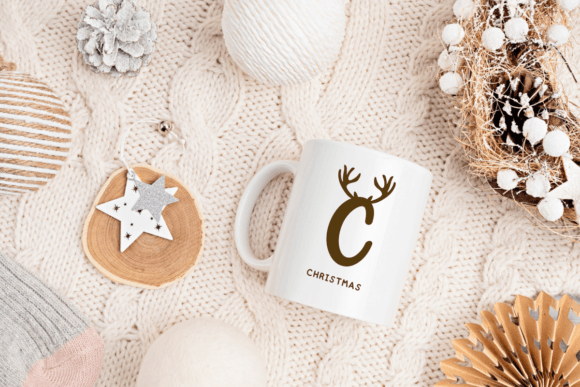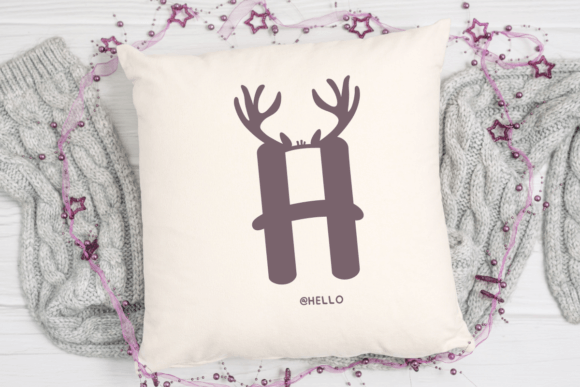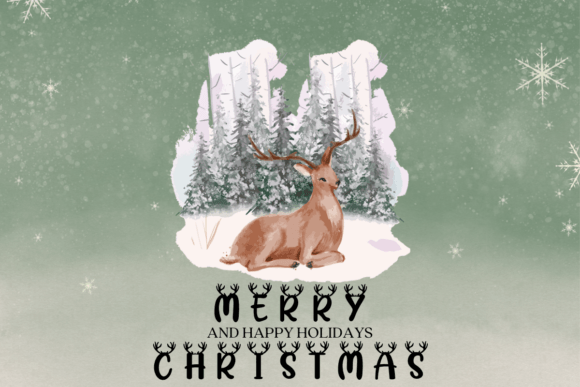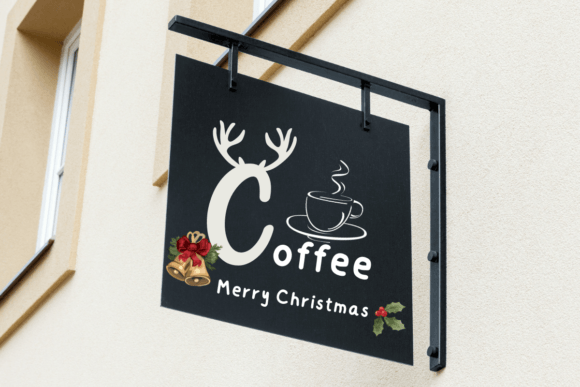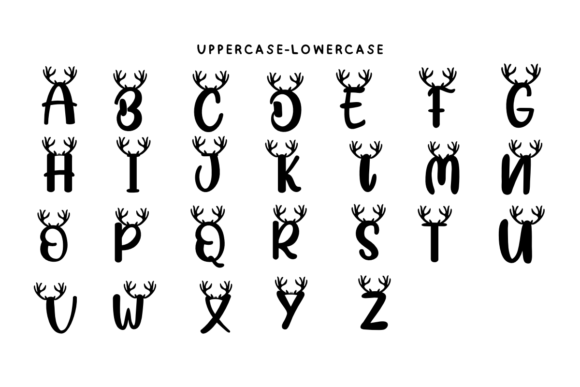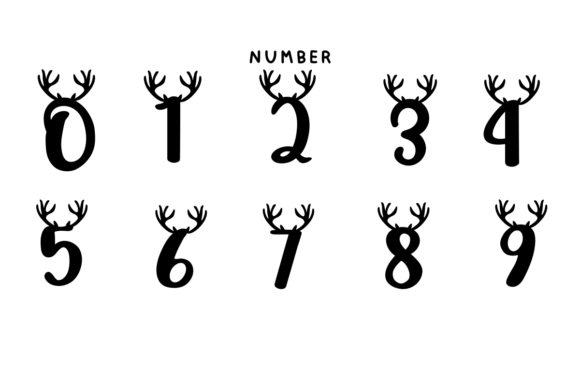
Introduction to Reindeer Christmas Font Font
Fonts play a crucial role in design, and the Reindeer Christmas Font font is a typeface that brings both character and versatility to any project. Whether you’re working on a branding project, a website, or a print design, the Reindeer Christmas Font font offers a unique style that can elevate your work.
Reindeer Christmas is a cute and festive handwritten decorative font.
You can use it for taking notes, writing a diary, or making greeting cards However, you can still use it for other designs, such as banners, content, mugs, cards, shirts, stationery, social media posts, and more.
Key Features of Reindeer Christmas Font Font
Why Choose Reindeer Christmas Font Font?
The Reindeer Christmas Font font is more than just a typeface – it’s a design tool that helps you communicate your message with style and clarity. Its unique character set and versatile design make it suitable for a wide range of applications, from elegant invitations to bold headlines.
With its carefully crafted letterforms and balanced proportions, the Reindeer Christmas Font font ensures readability and visual appeal across all mediums.
What makes Reindeer Christmas Font font special?
The Reindeer Christmas Font font stands out with its unique design, exceptional readability, and versatility across various design applications.